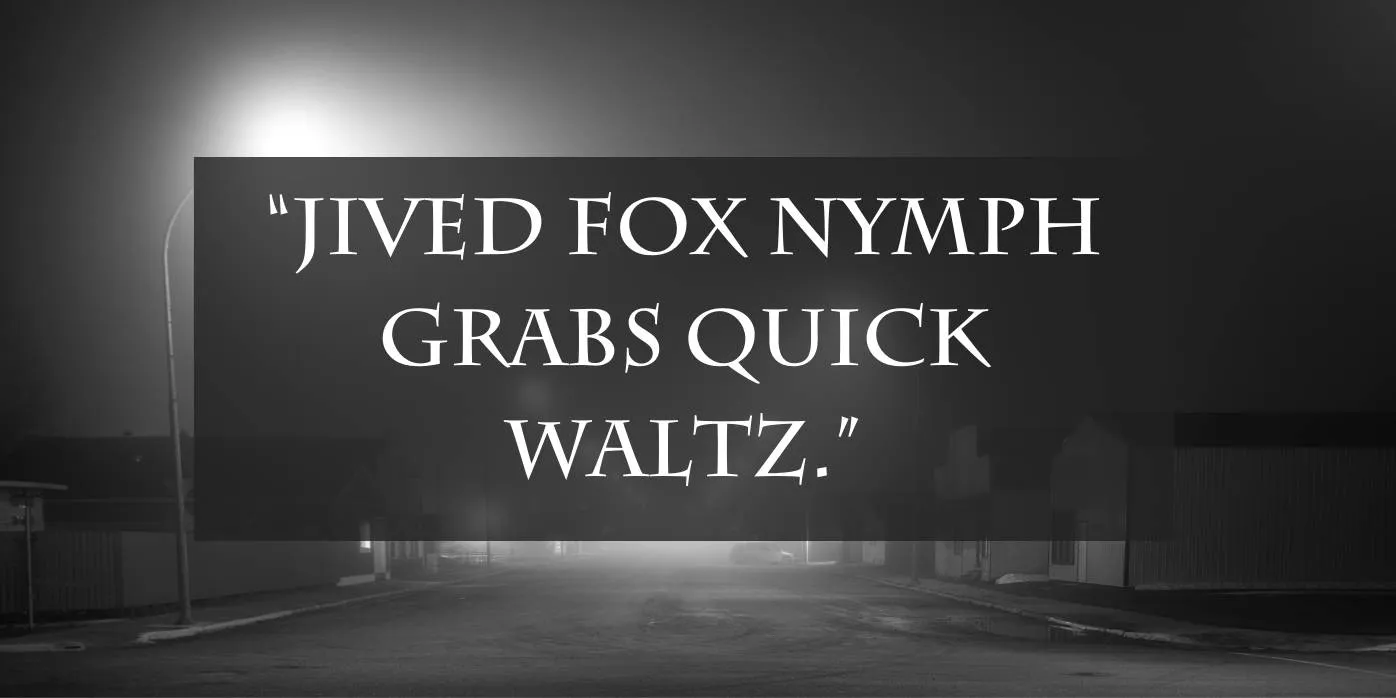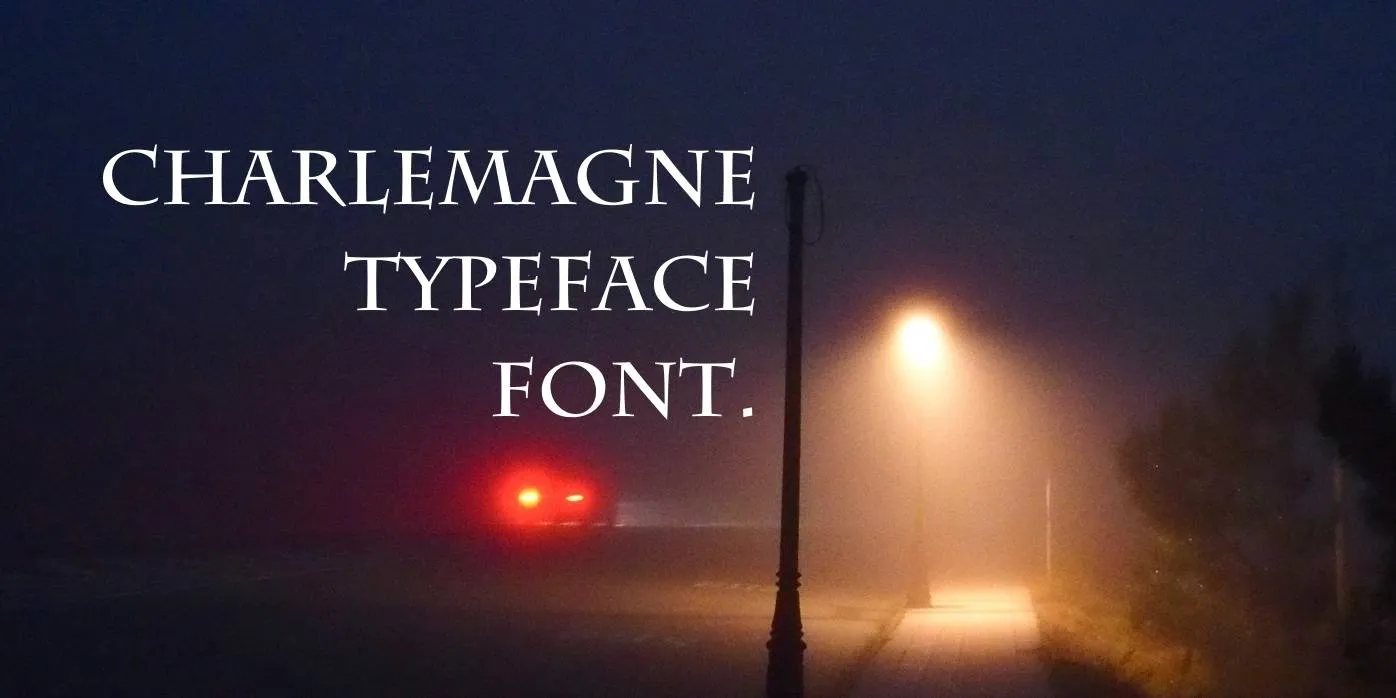
Charlemagne Font
Charlemagne Font was designed by Carol Twombly and published by Adobe. This font is a high-legibility text typeface created as an OpenType font with language support for Afrikaans, Albanian, Breton, Catalan, Croatian, Czech, Danish, and many others. This awesome font is famous all over the world and Font is best for logos, presentations, magazines, and many others. Charlemagne Typeface Font contains 8 weights (100 to 900) with italics.
The font family has OpenType features including Stylistic Alternates, Ligatures, and Old Style Numeric figures giving insight into the background history of this font. Its value is enhanced among designers and is recommended to use in all your designs. I hope you enjoyed this article and gained knowledge or information from it. You can its similar font Century Schoolbook Font.